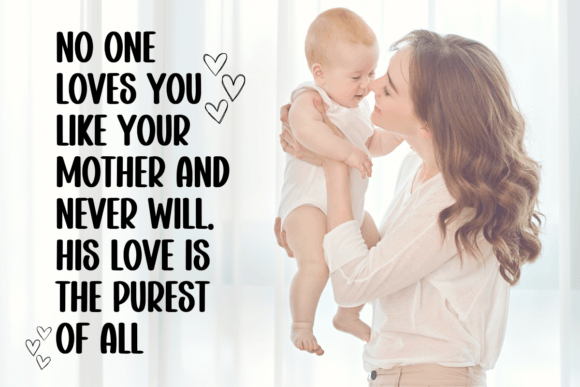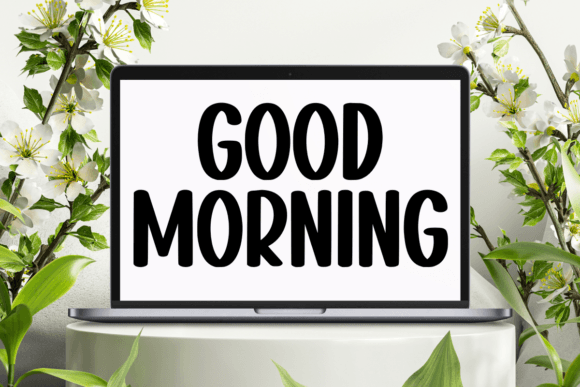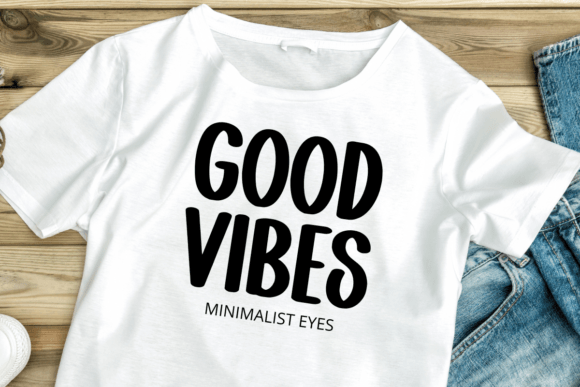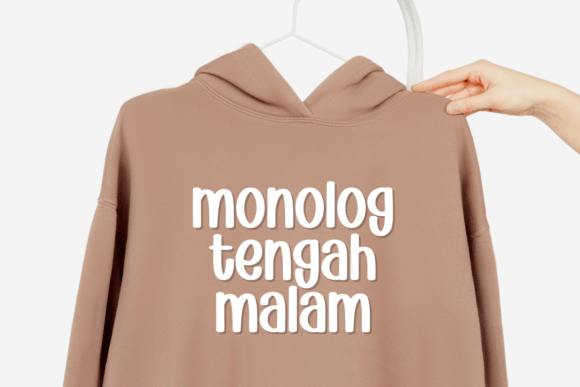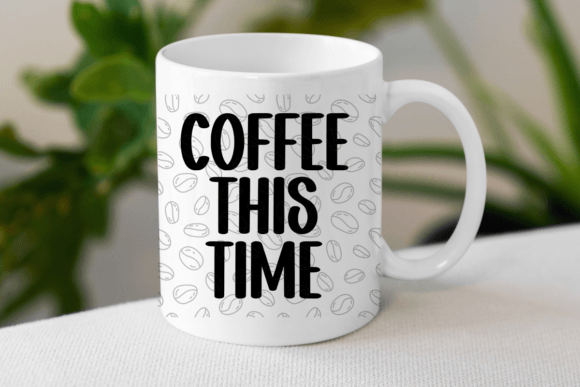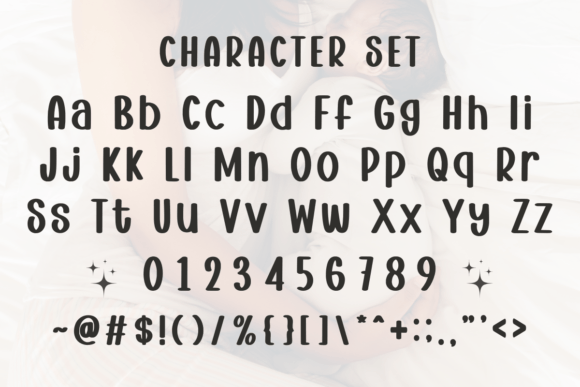
Introducing Darling Mother Font: The Ultimate Display Font for Creative Designs
Are you tired of using the same old fonts for your designs? Look no further than Darling Mother Font, a lively display font that’s sure to add a sprinkle of fun to any project. With its rounded edges and playful letterforms, Darling Mother exudes a sense of whimsy and versatility that’s perfect for designers and crafters looking to inject some personality into their work.
What Makes Darling Mother Font So Special?
Darling Mother Font is more than just a pretty face – it’s a highly functional font that’s designed to help you create stunning designs with ease. Here are just a few of the features that make Darling Mother stand out:
- Rounded Edges: Darling Mother’s rounded edges give it a soft, approachable feel that’s perfect for designs that need a touch of warmth and personality.
- Playful Letterforms: The font’s playful letterforms are designed to add a sense of fun and whimsy to your designs, making it perfect for projects that require a bit of flair.
- Versatility: Darling Mother is a highly versatile font that can be used for everything from branding and packaging to posters and more.
Darling Mother Font is ideal for a wide range of design projects, including:
- Branding: Use Darling Mother to create a unique and memorable brand identity that sets you apart from the competition.
- Packaging: Add a touch of personality to your product packaging with Darling Mother’s playful and whimsical design.
- Posters: Create eye-catching posters that grab attention with Darling Mother’s bold and cheerful letterforms.
- Crafting: Whether you’re creating handmade cards, scrapbooking, or working on other craft projects, Darling Mother is the perfect font to add a bit of fun and personality to your work.
Why Choose Darling Mother Font?
With so many fonts to choose from, why should you choose Darling Mother? Here are just a few reasons why designers and crafters love this font:
- Easy to Read: Despite its playful design, Darling Mother is easy to read, even at smaller sizes.
- Highly Versatile: Darling Mother can be used for a wide range of design projects, from formal to informal.
- Unique and Memorable: Darling Mother’s unique design makes it a great choice for designers who want to create something truly memorable.
Tips for Using Darling Mother Font
Here are a few tips for getting the most out of Darling Mother Font:
- Pair it with a Serif Font: Pair Darling Mother with a serif font for a classic and elegant look.
- Use it for Headlines: Darling Mother is perfect for headlines and titles, where its bold and playful design can really shine.
- Experiment with Colors: Don’t be afraid to experiment with different colors and textures to really make Darling Mother pop.
Darling Mother Font is a lively display font that’s perfect for designers and crafters looking to add a bit of fun and personality to their work. With its rounded edges, playful letterforms, and versatility, Darling Mother is ideal for a wide range of design projects, from branding and packaging to posters and more. So why wait? Download Darling Mother Font today and start creating stunning designs that are sure to delight!